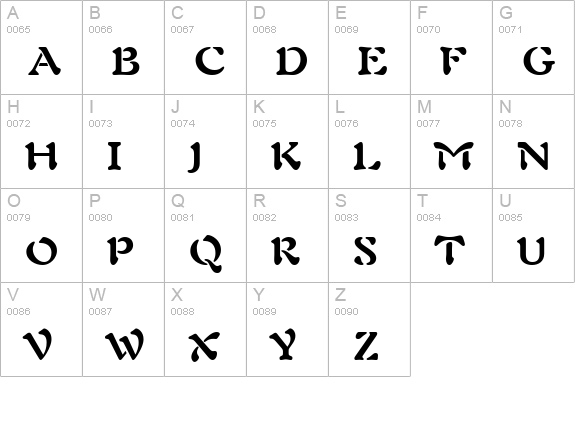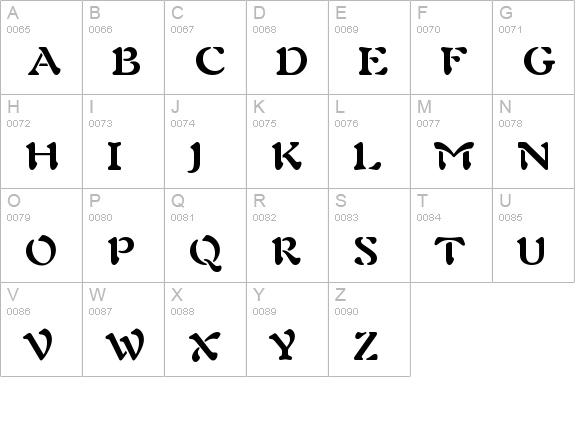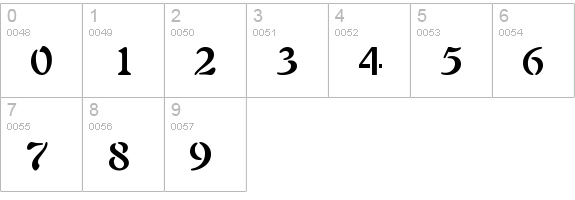
Palette SSi Bold is a strong, high-contrast variant in the Palette typeface family \xE2\x80\x94 well suited to headlines, attention-grabbing titles, and strong calls-to-action.
Palette SSi Bold is a visually striking font that exudes confidence and boldness. Its strong and distinct letterforms make it perfect for creating impactful headlines, titles, and logos. With its commanding presence, this font demands attention and leaves a lasting impression. The carefully crafted design of Palette SSi Bold showcases its versatility, making it suitable for a wide range of design projects. Whether you are designing a poster, a website, or a branding project, this font will effortlessly elevate your work to new heights. One of the standout features of Palette SSi Bold is its generous letter spacing, which enhances readability and legibility. Each character is meticulously designed to ensure clarity without sacrificing its distinctive style. This font is a true testament to the skill and expertise of its creator. What's even better is that Palette SSi Bold is available for free download at FontsMarket.com. This means that you can easily access and use this font without any hassle or cost. Whether you are a professional designer or a hobbyist, this font will be a valuable addition to your collection. Download Palette SSi Bold today and unleash its power in your designs. Let this font be the driving force behind your creative endeavors, helping you make a lasting impact and stand out from the crowd. With its boldness and versatility, Palette SSi Bold is sure to become your go-to font for all your design needs.